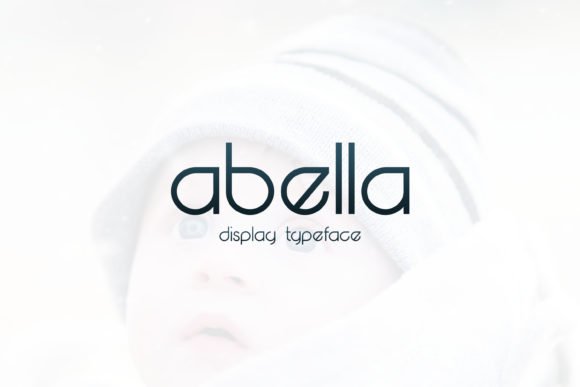
Unlock Your Creative Potential with Abella Font
There’s nothing quite like the rush of a creative breakthrough – the moment when all the pieces come together and your project starts to take shape. You’re scrolling through design inspiration boards, flipping through typography books, and suddenly, you stumble upon the perfect font. For many designers, this moment is when Abella Font becomes the star of the show.
Abella Font is a modern and clean display font, designed to elevate your creative ideas and make them stand out. Its versatility allows it to be paired with a wide range of projects, from sleek corporate websites to vibrant marketing campaigns. With Abella Font, you can add a touch of sophistication and elegance to your designs, making them truly unforgettable.
For designers, Abella Font is a valuable asset that can take their work to the next level. Its clean lines, simple shapes, and modern aesthetic make it an ideal choice for a variety of projects, from branding and advertising to digital products and publications.
Abella Font Key Features
- Font Family: Abella Font is a sans-serif font family.
- Unique Characteristics: Abella Font features a modern and clean design with a high x-height, making it ideal for digital and print media.
Abella Font Review
I recently had the chance to work with the Abella font, and I must say, it’s a unique and elegant choice for any design project. Here’s what I liked about it: ✨
- Legibility: Abella is extremely legible, even at smaller font sizes, making it perfect for body text.
- Flair: The font’s flair and style add a touch of sophistication to any design, perfect for luxury or high-end brands.
- Pairing: Abella pairs well with a wide range of fonts, making it a great choice for multi-font projects.
- Readability on screens: While Abella is legible, it may not be the best choice for text-heavy screens, as it can appear somewhat dense.
- Limited font sizes: While Abella works well at smaller font sizes, it may not be the best choice for very large font sizes, as it can appear somewhat clumsy.
Overall, Abella is a beautiful and elegant font that works well in a variety of design projects. While it has some limitations, it’s a great choice for luxury or high-end brands looking to add a touch of sophistication to their designs.
The Abella Font is versatile and can be used in a variety of applications, including:
- Logo design and branding
- Infographics and data visualizations
- Marketing materials and advertisements Alternatives to Abella Font
- Use Abella Font for the main title of the invitation, such as the couple’s names and the wedding date.
- Pair Abella Font with a serif font, such as Georgia or Times New Roman, for the body text to create a nice contrast.
- Use a watercolor or floral pattern in the background to add a touch of romance.
- Embellish the design with gold or silver foil stamping for a luxurious look.
- Use Abella Font for the brand name and logotype to create a strong and recognizable brand identity.
- Pair Abella Font with a sans-serif font, such as Open Sans or Arial, for body text to maintain a clean and modern look.
- Use a bold and bright color scheme to create a striking visual identity.
- Emphasize the brand’s modernity by using geometric shapes and clean lines in the design.